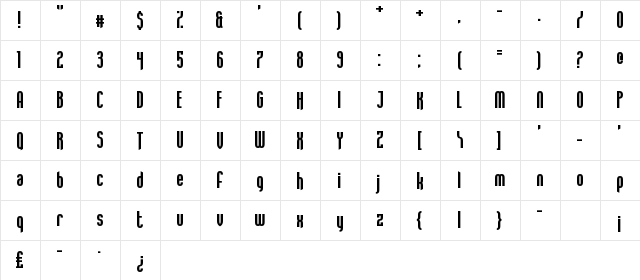
Aquamarina Regular
Design Context for Aquamarina Typeface
Aquamarina takes a measured approach to typography — its balanced proportions and neutral character make it a reliable workhorse for both digital and print work.